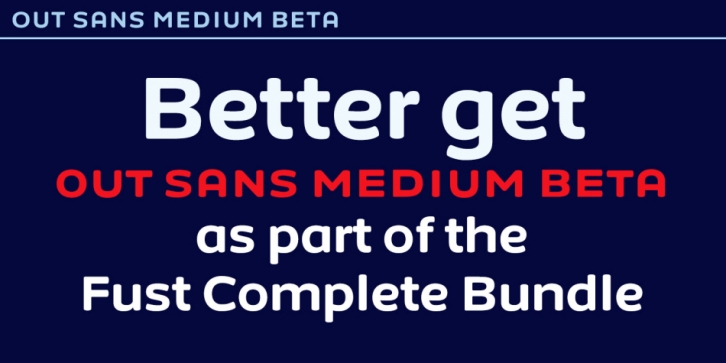
Publisher: Fust & Friends
Designed by Allan Daastrup, OutSans Medium Beta is a display sans and sans serif font published by Fust & Friends.
OutSans Medium Beta is the beginning of an individualist, squarish, charming and super-legible sans serif. We started a collaboration with the brilliant Basque-Country-based Allan Daastrup years ago. But he was assigned the design of numerous corporate typefaces, logos, and lettering pieces by prestigious customers such as Danish premium beer brand Carlsberg. Fust & Friends liked the Medium weight and used it as a secondary font for most samples and specimens. Allan agreed that we included this “future font”, usable but still incomplete, as an addendum to the F U S T & F R I E N D S • C O M P L E T E • B U N D L E !